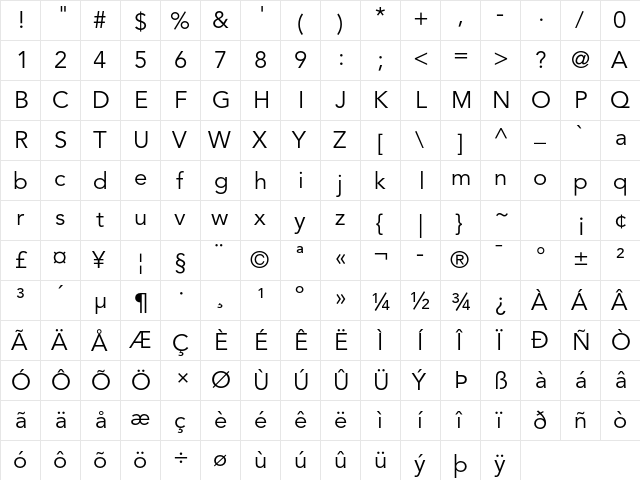
Avenir LT Std 45 Book
| Designer | Adrian Frutiger |
Design Context for Avenir LT Std Typeface
Avenir LT Std takes a measured approach to typography — its balanced proportions and neutral character make it a reliable workhorse for both digital and print work. The delicate stroke weight brings airiness and refinement to layouts.